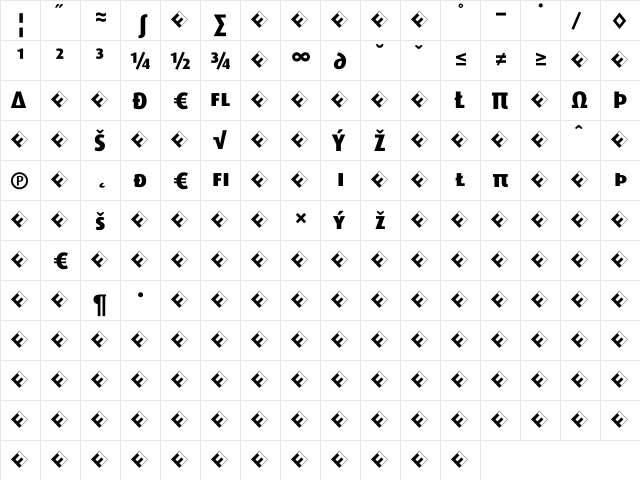
Dax-ExtraBoldCapsExp Regular
Design Context for Dax-ExtraBoldCapsExp Typeface
Dax-ExtraBoldCapsExp is a composed and adaptable typeface that performs quietly and consistently across a wide range of design contexts. Its bold stroke weight gives it real presence on the page.